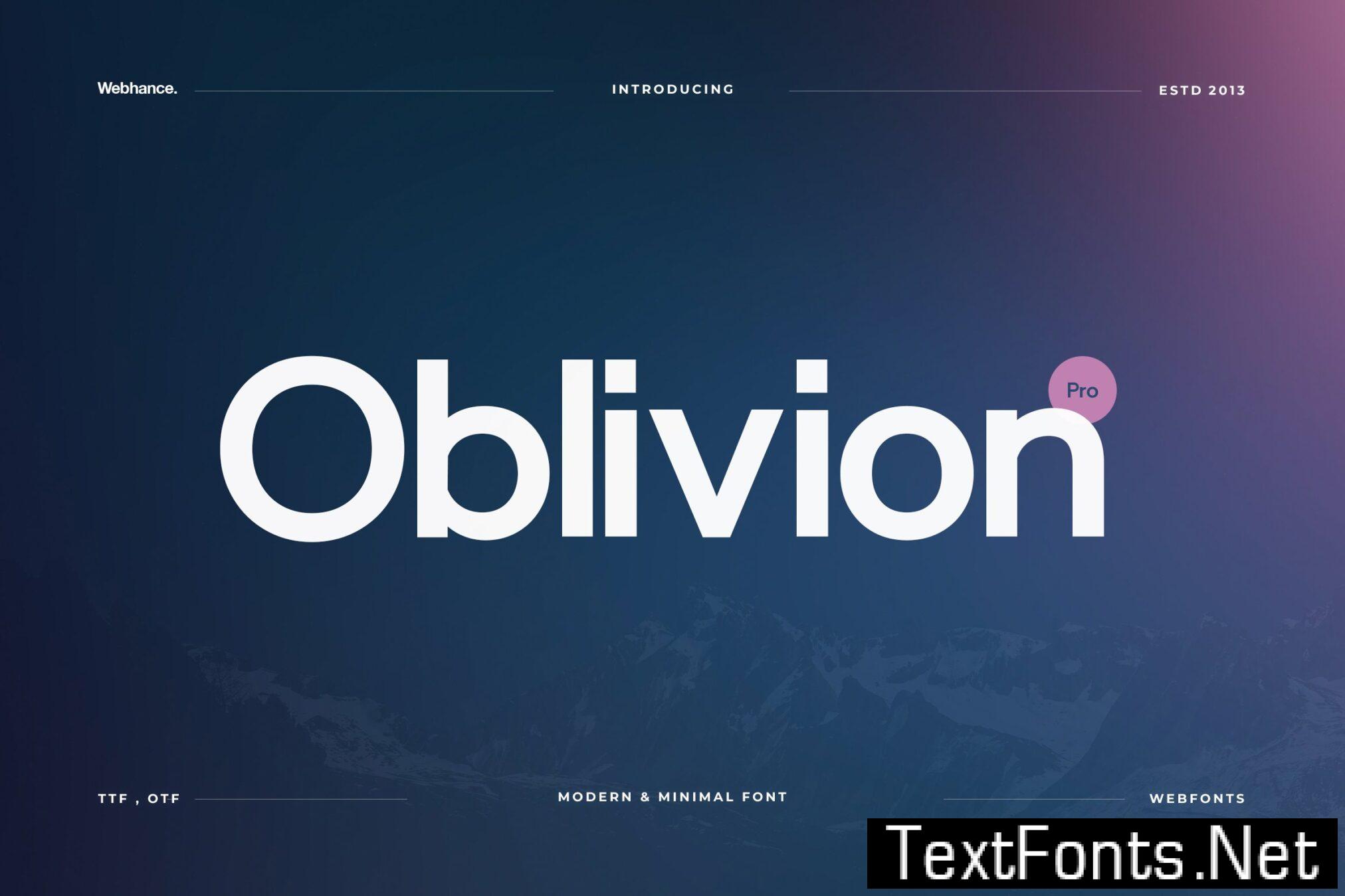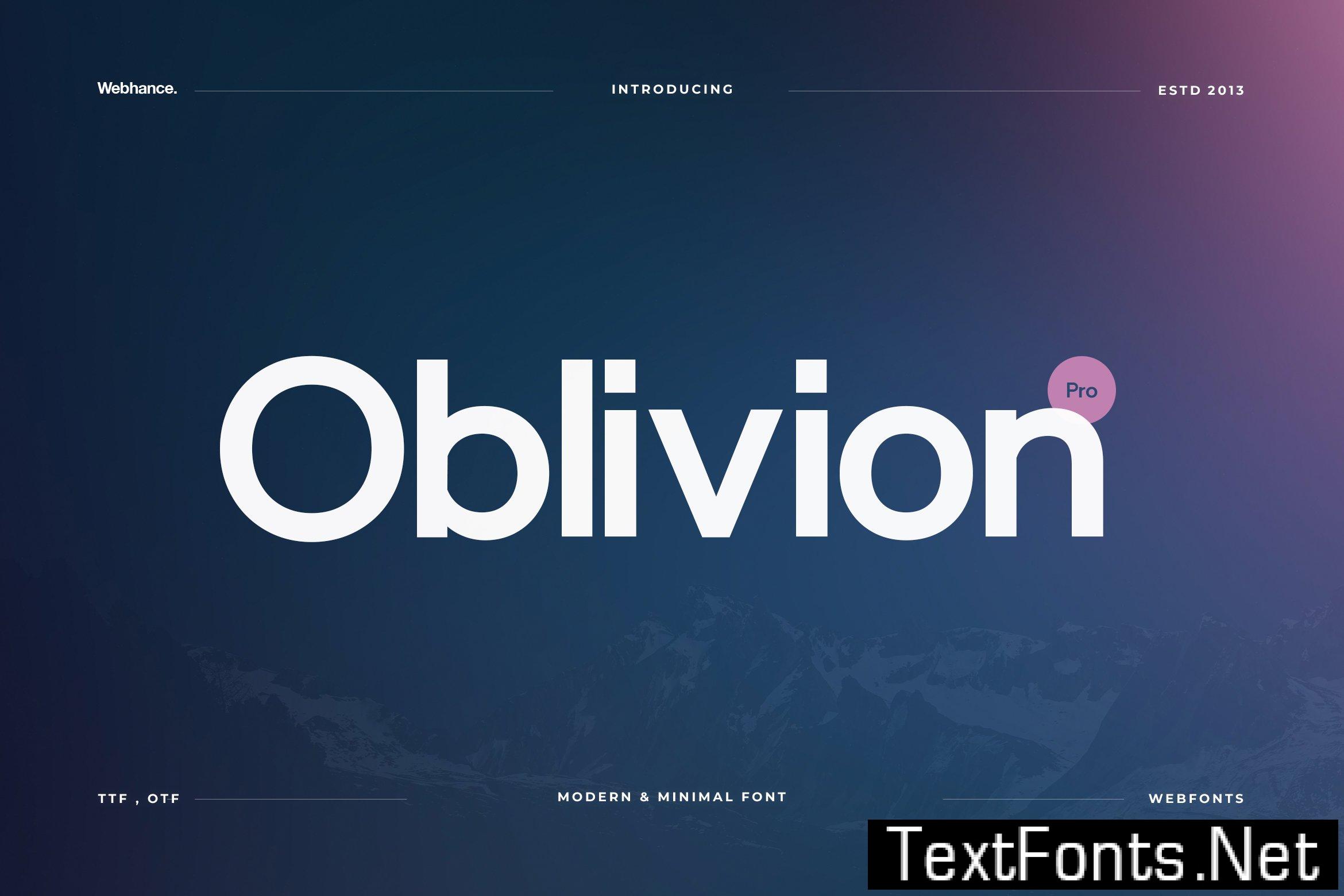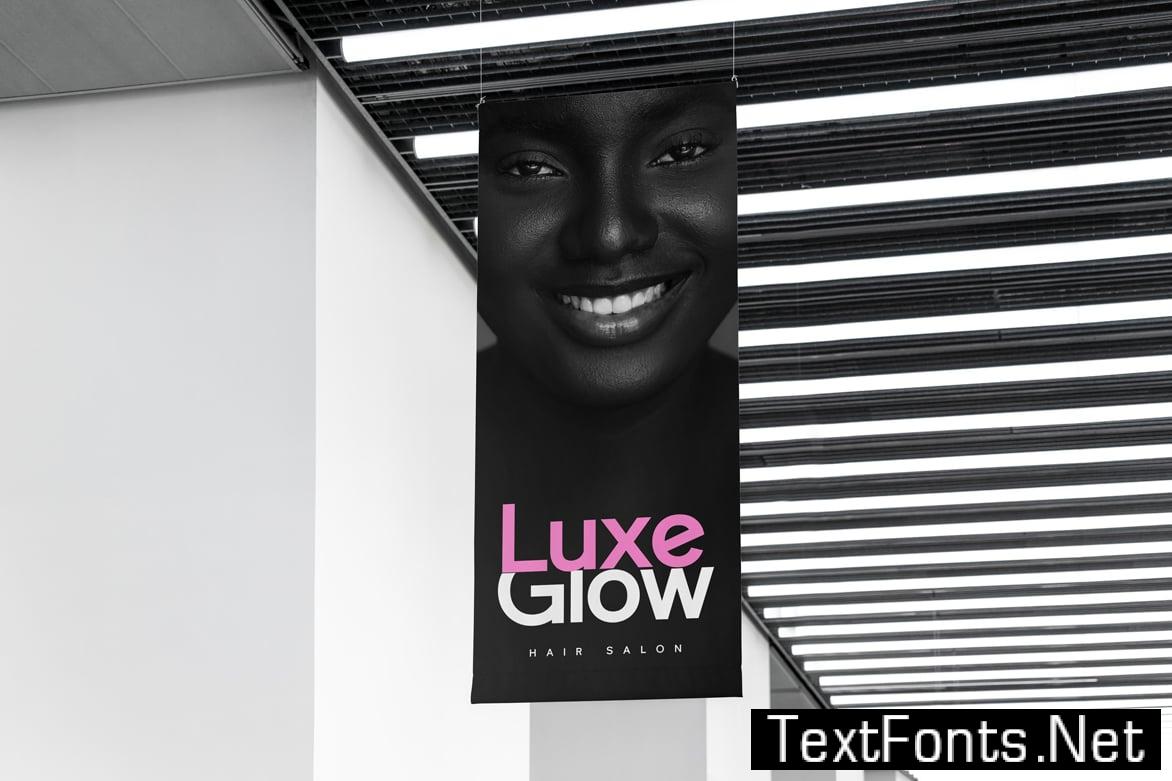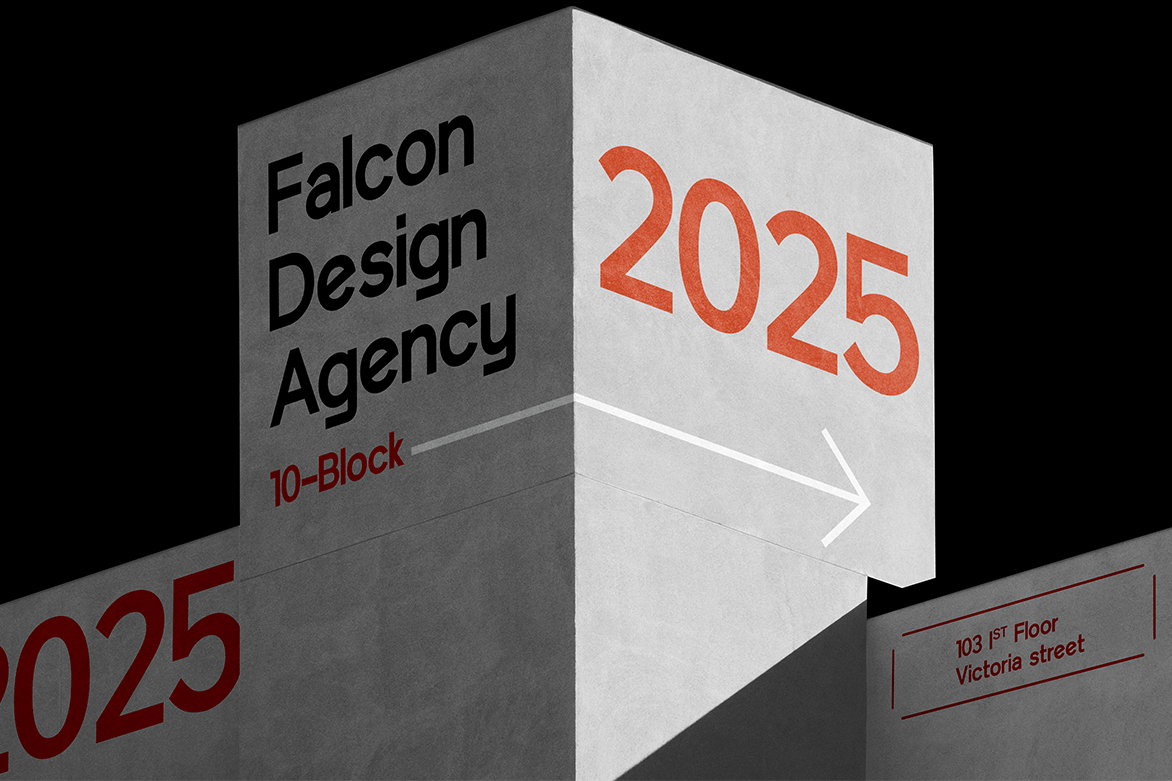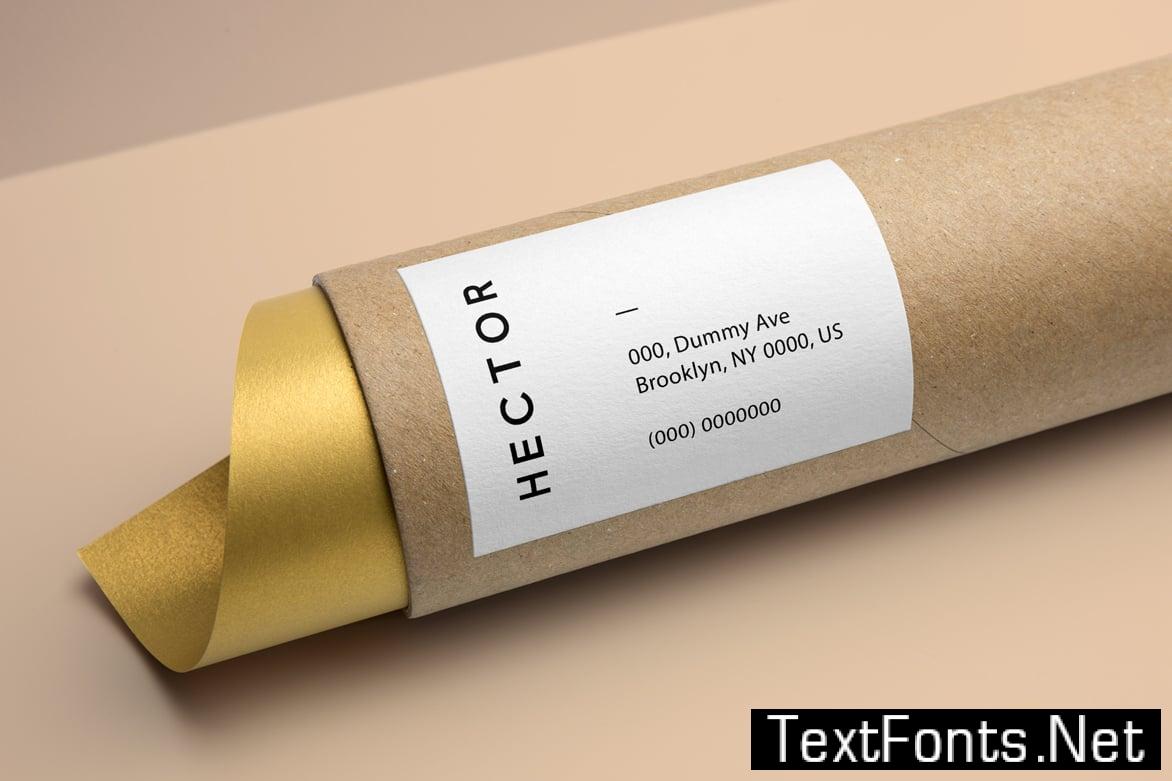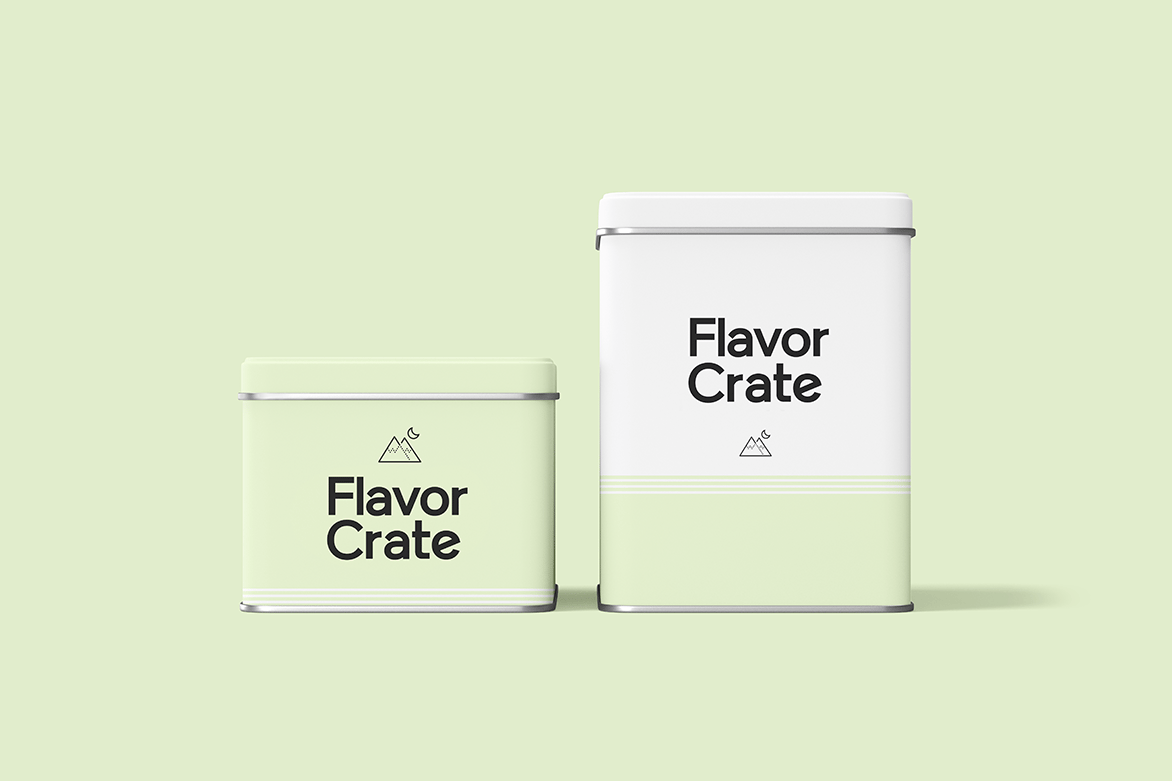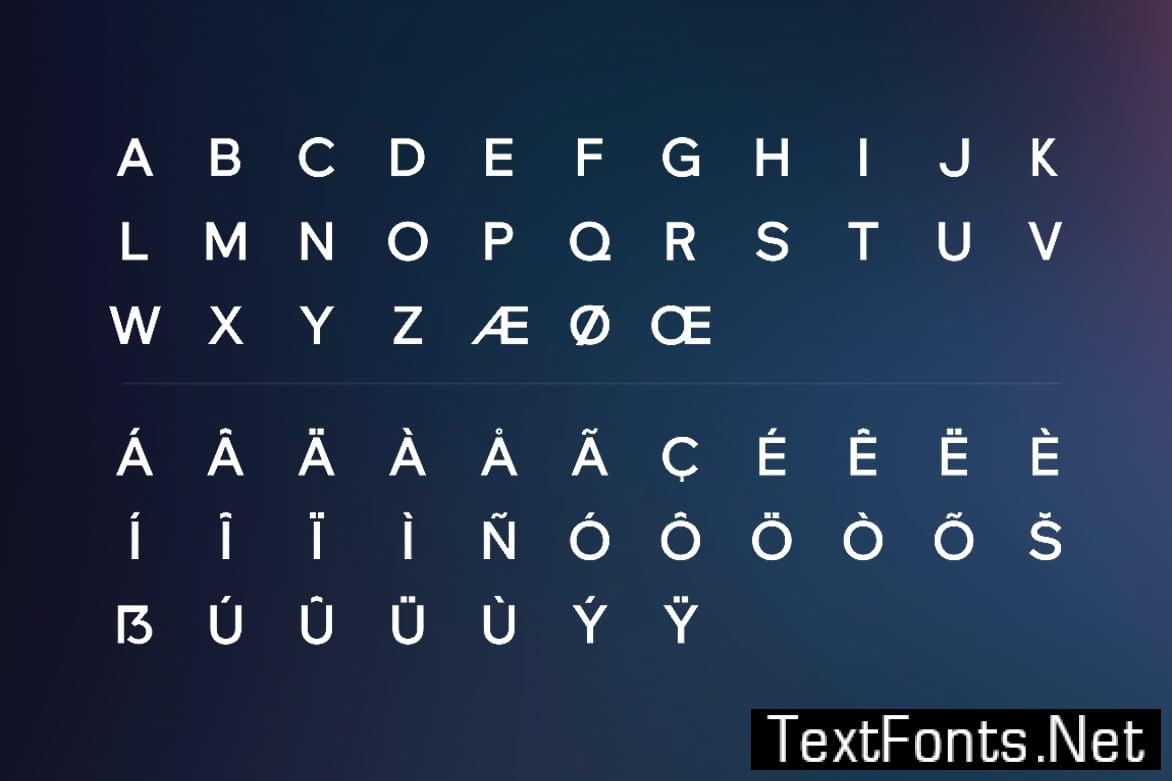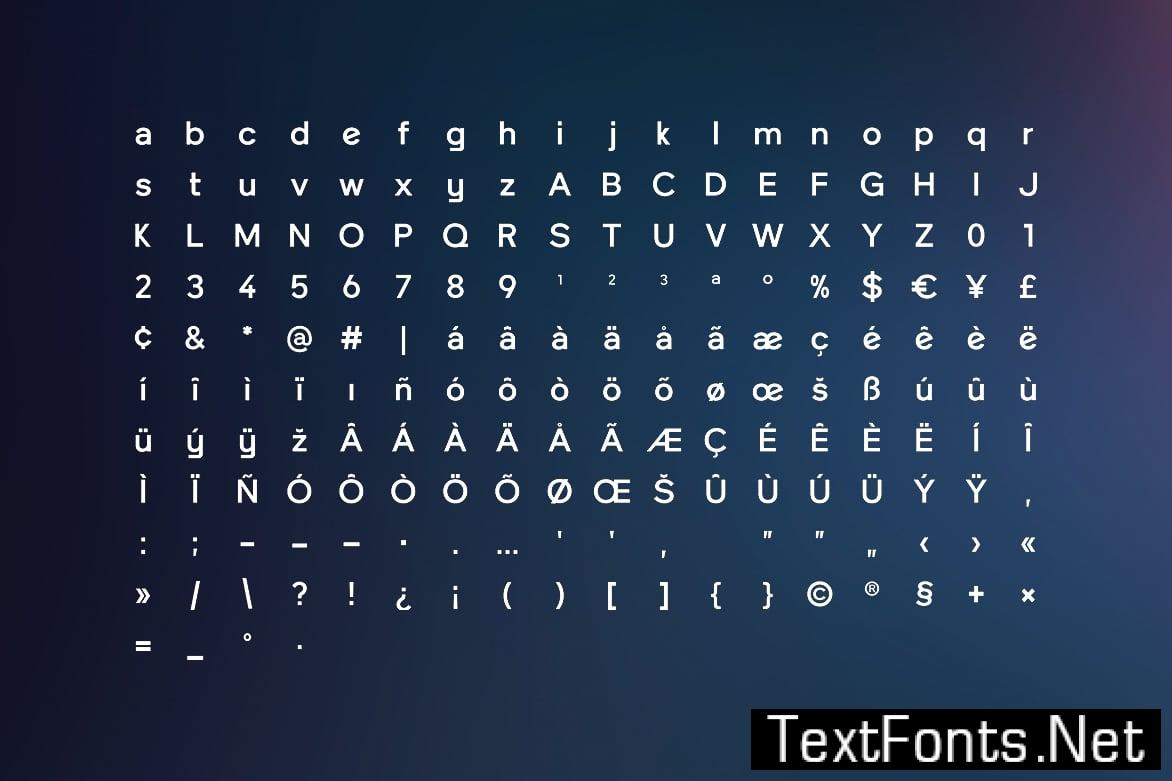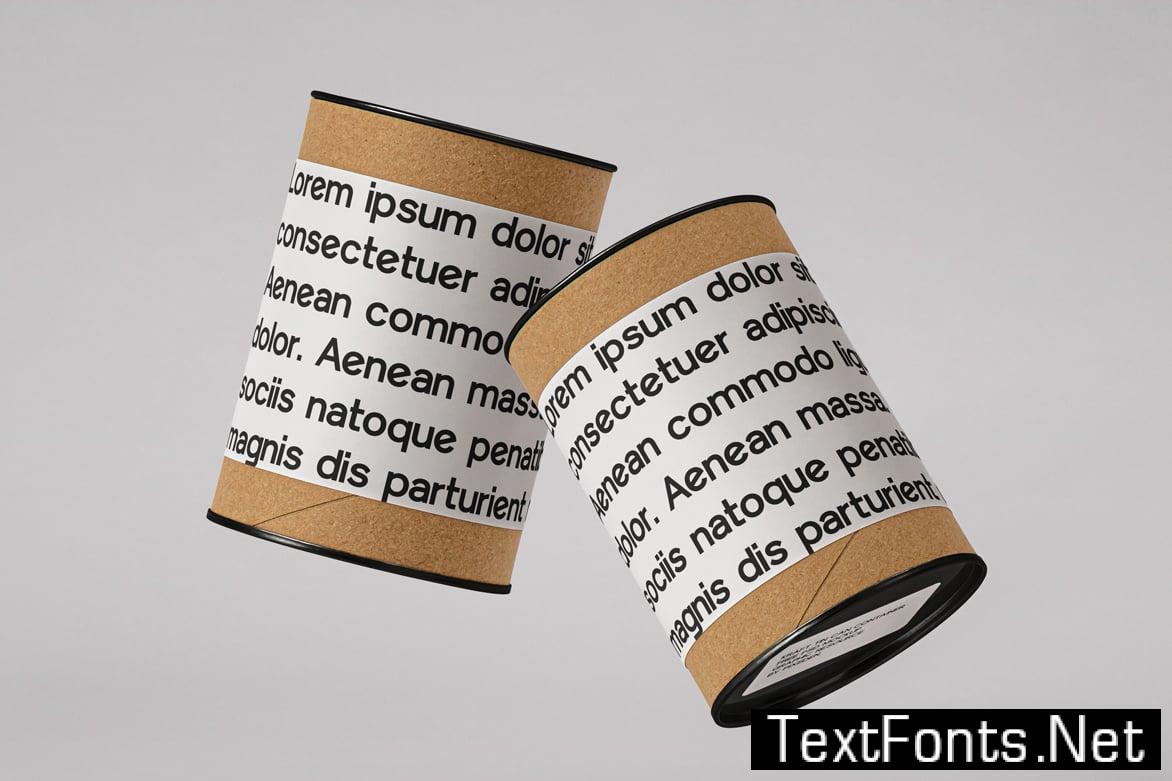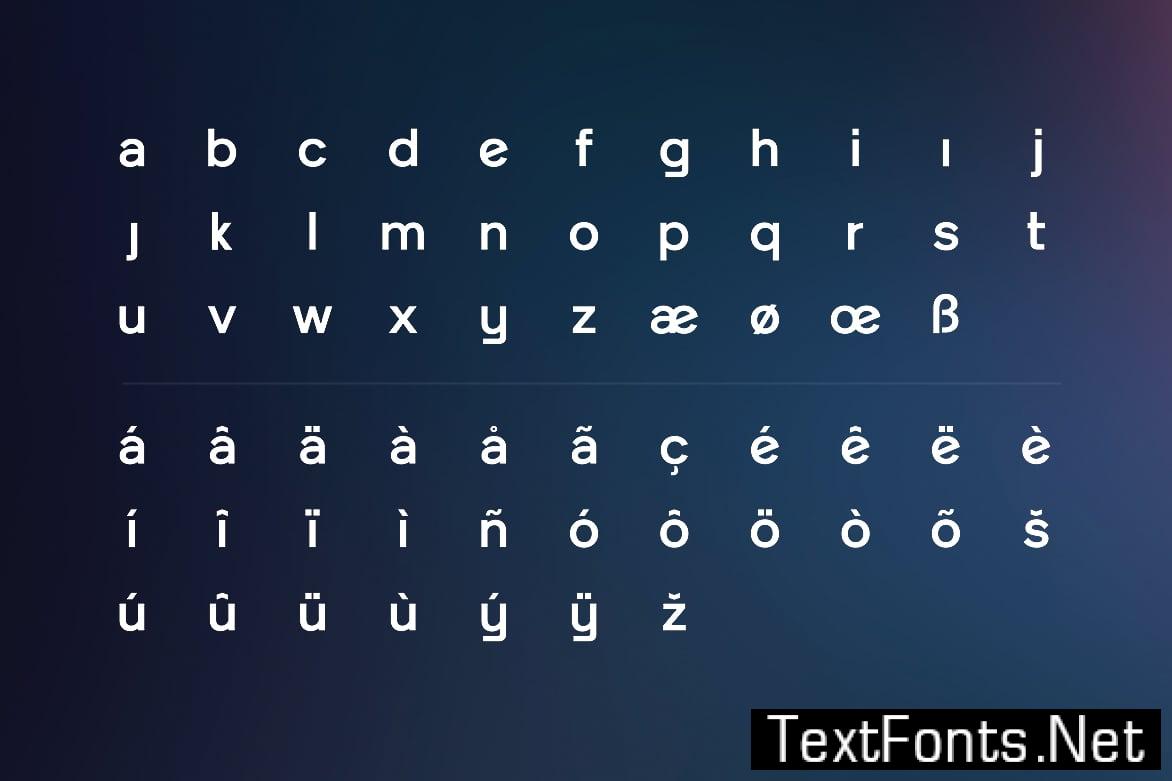
Oblivion – Modern Sans-Serif Webfont S968WBQ
**Oblivion Minimal Typeface**
Introducing “Oblivion”! This versatile font features extended multilingual glyphs, making it perfect for a wide range of design projects. Whether you’re creating minimalistic designs, captivating Instagram posts, eye-catching YouTube thumbnails, or vibrant posters, Oblivion fits the bill. Its elegance and functionality blend seamlessly, offering endless possibilities for any modern design aesthetic. Explore the world of Oblivion and enhance your creative projects.
* **Multilingual Font**
* **Uppercase letters**
* **Lowercase letters**
* **200+ Glyphs**
* **Numbers**
* **Punctuations**